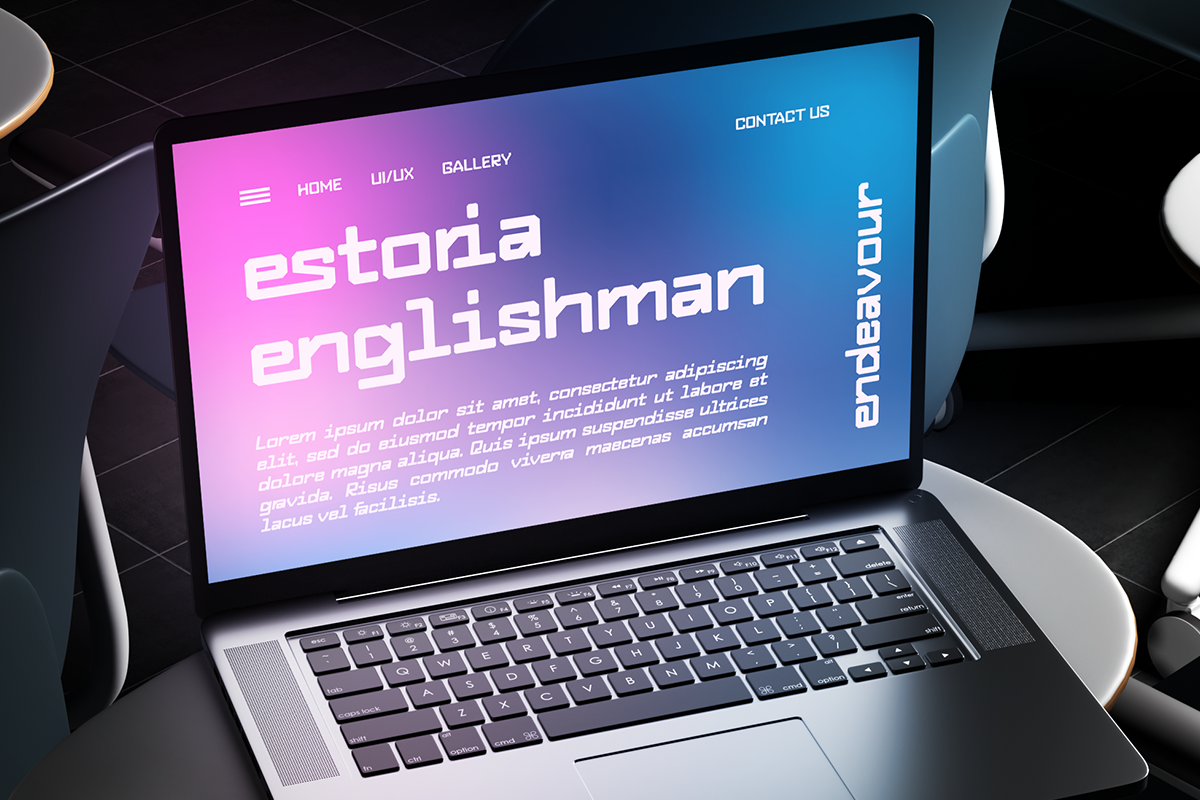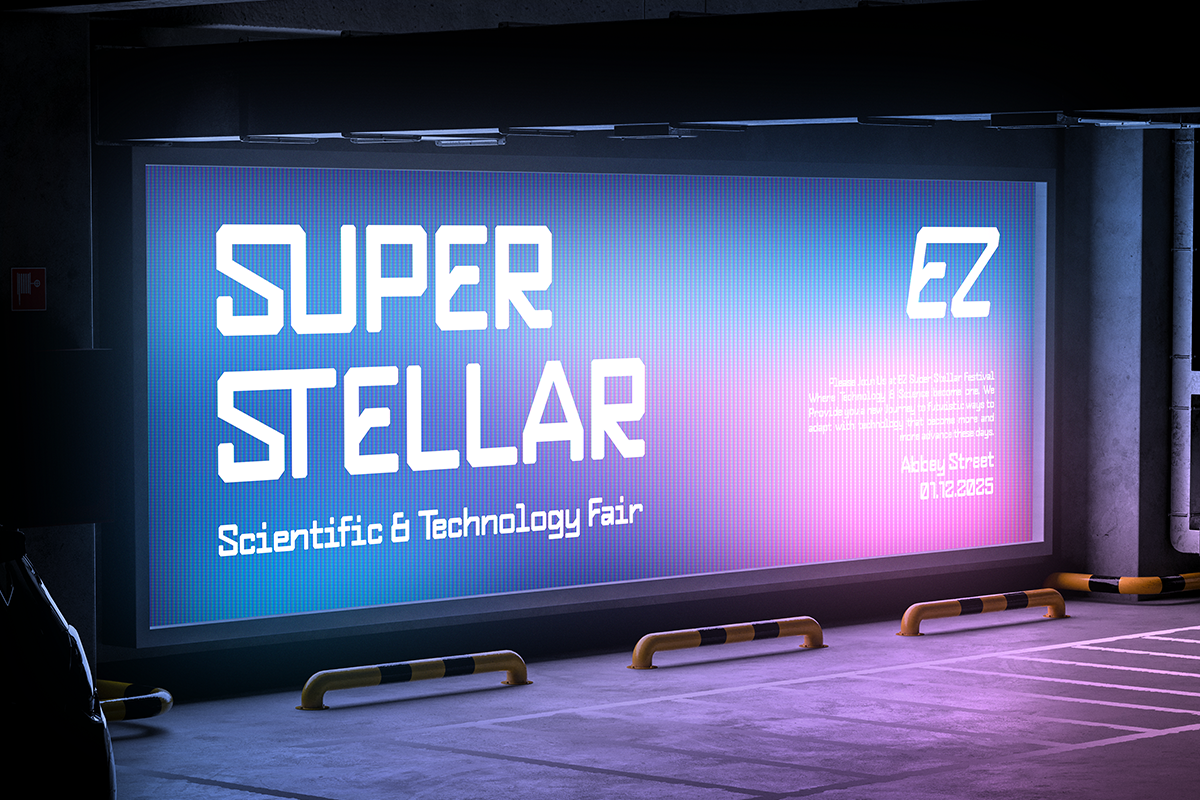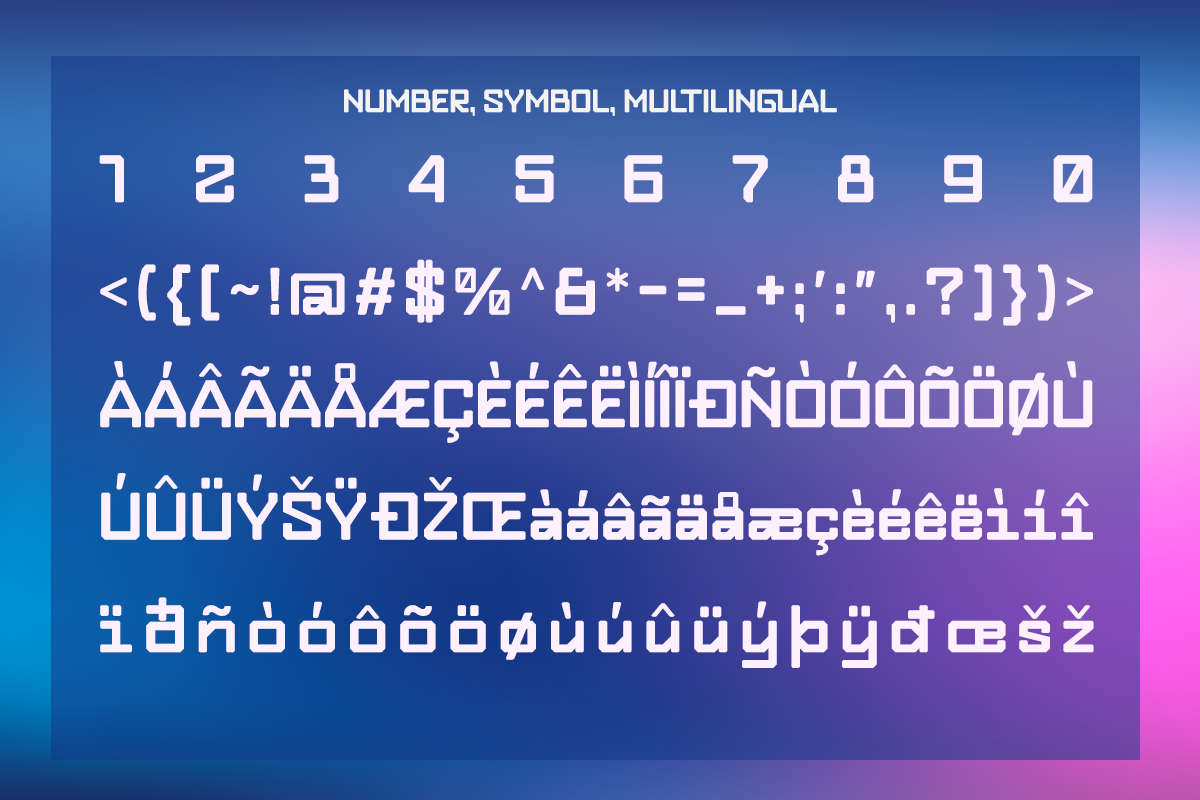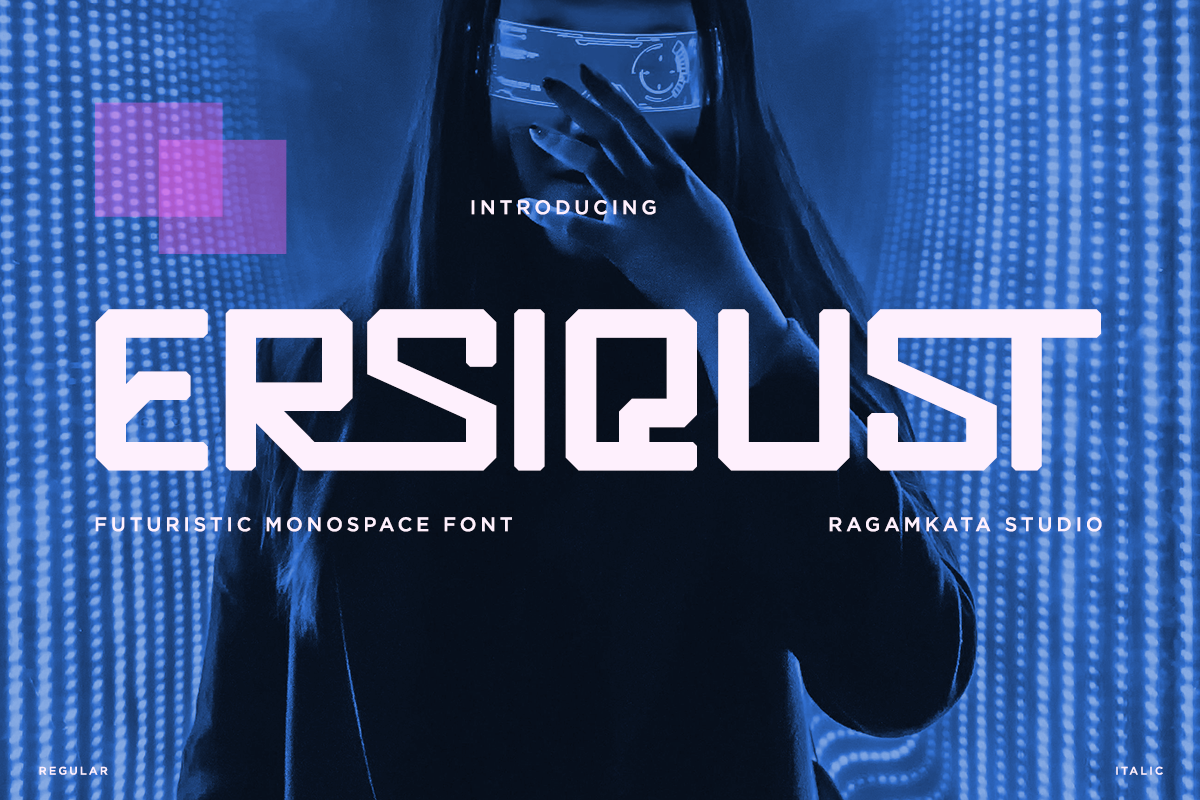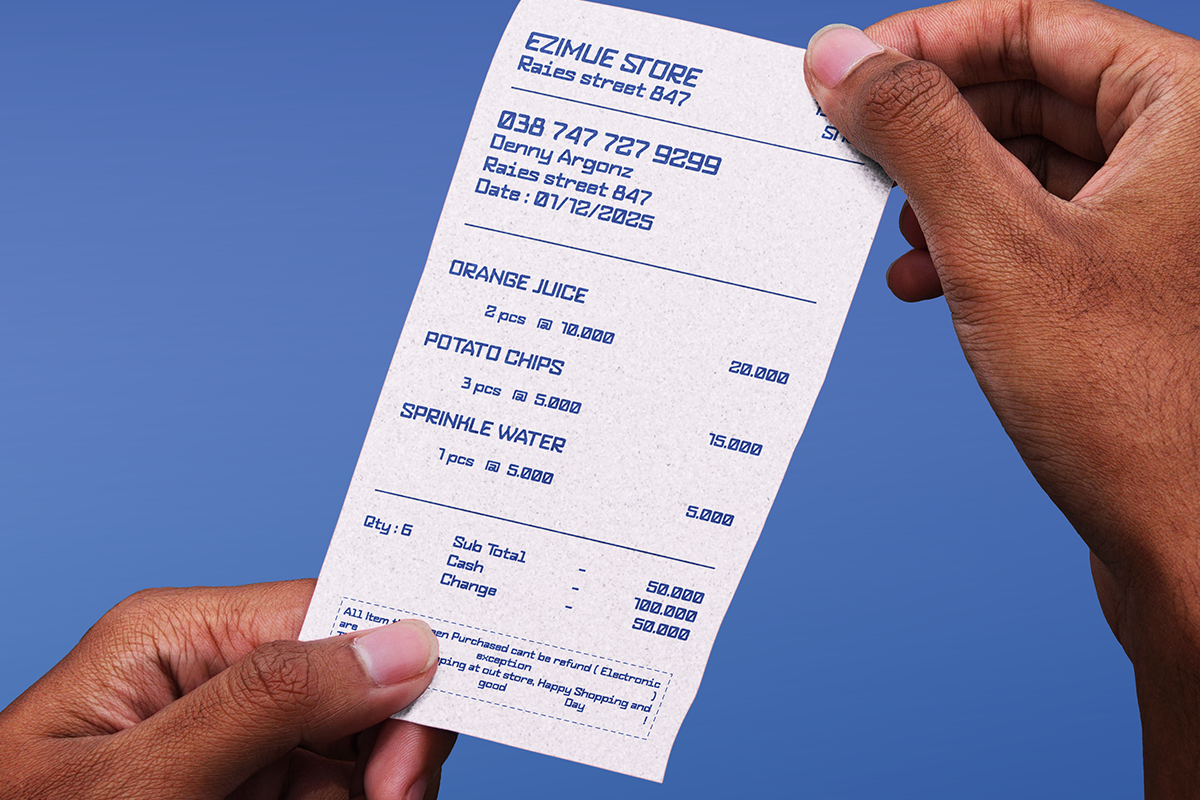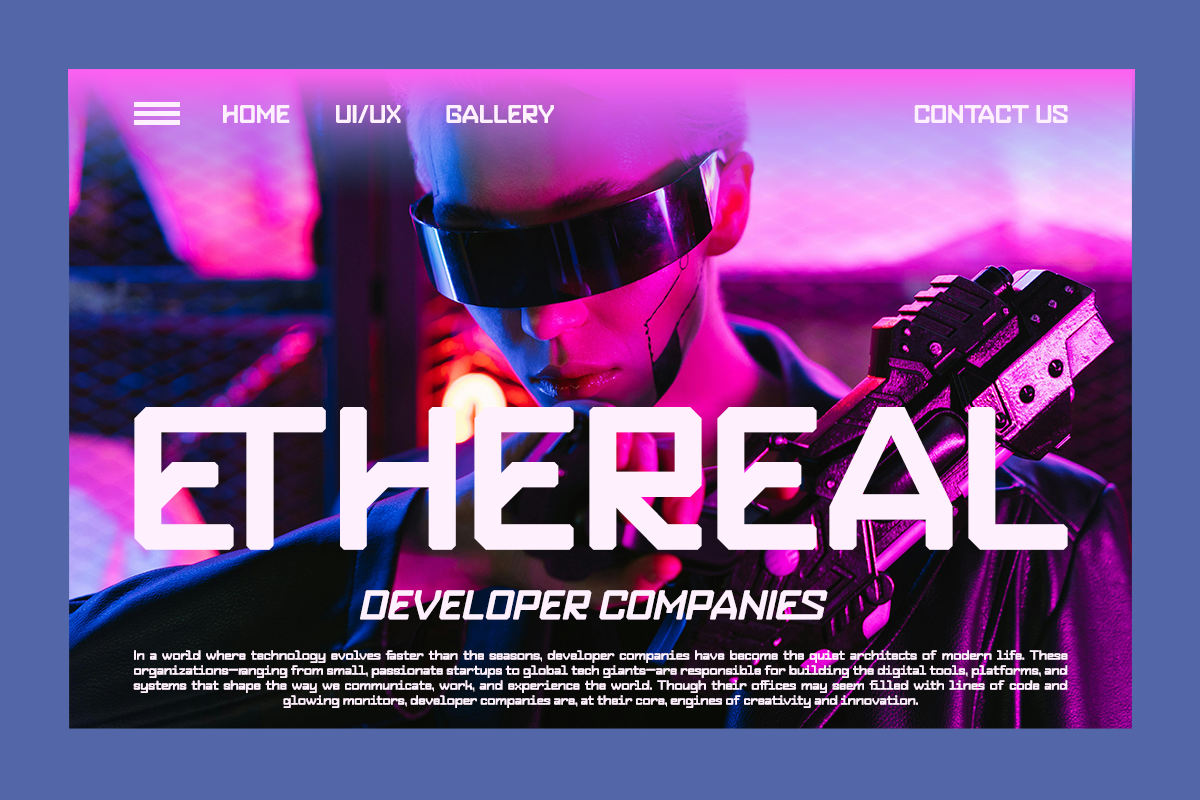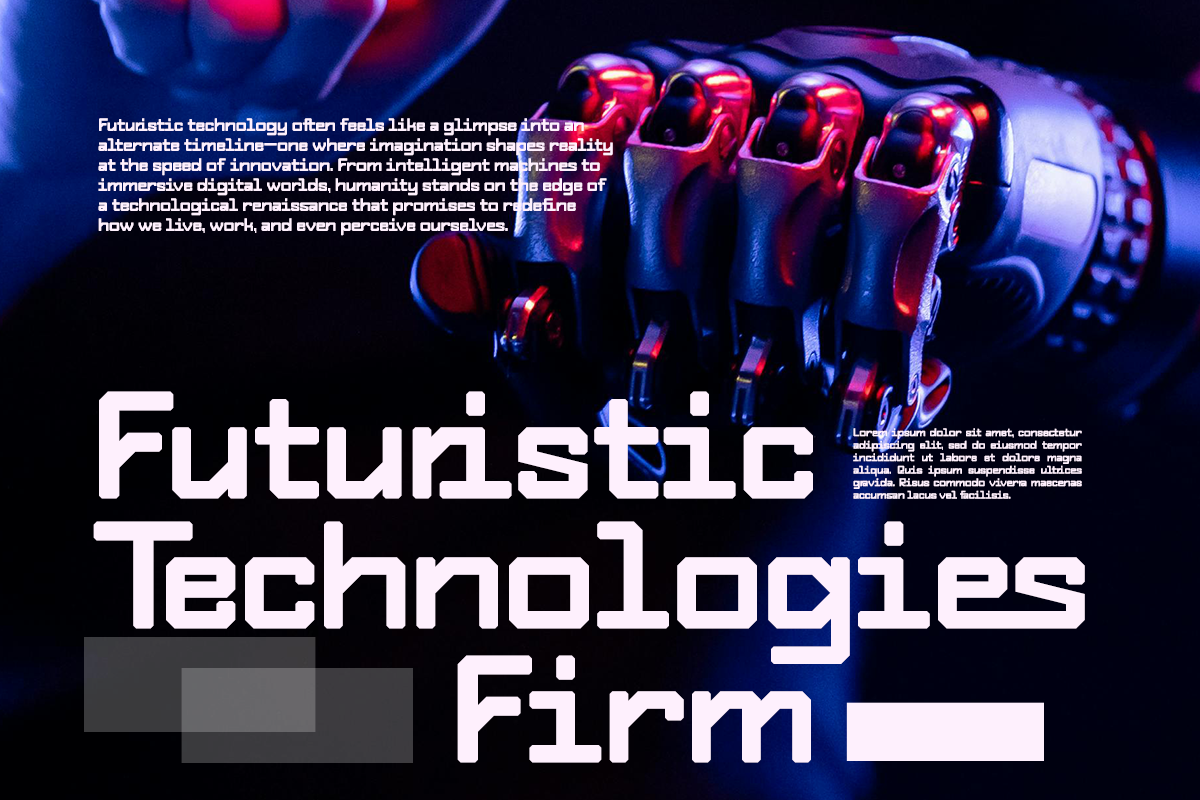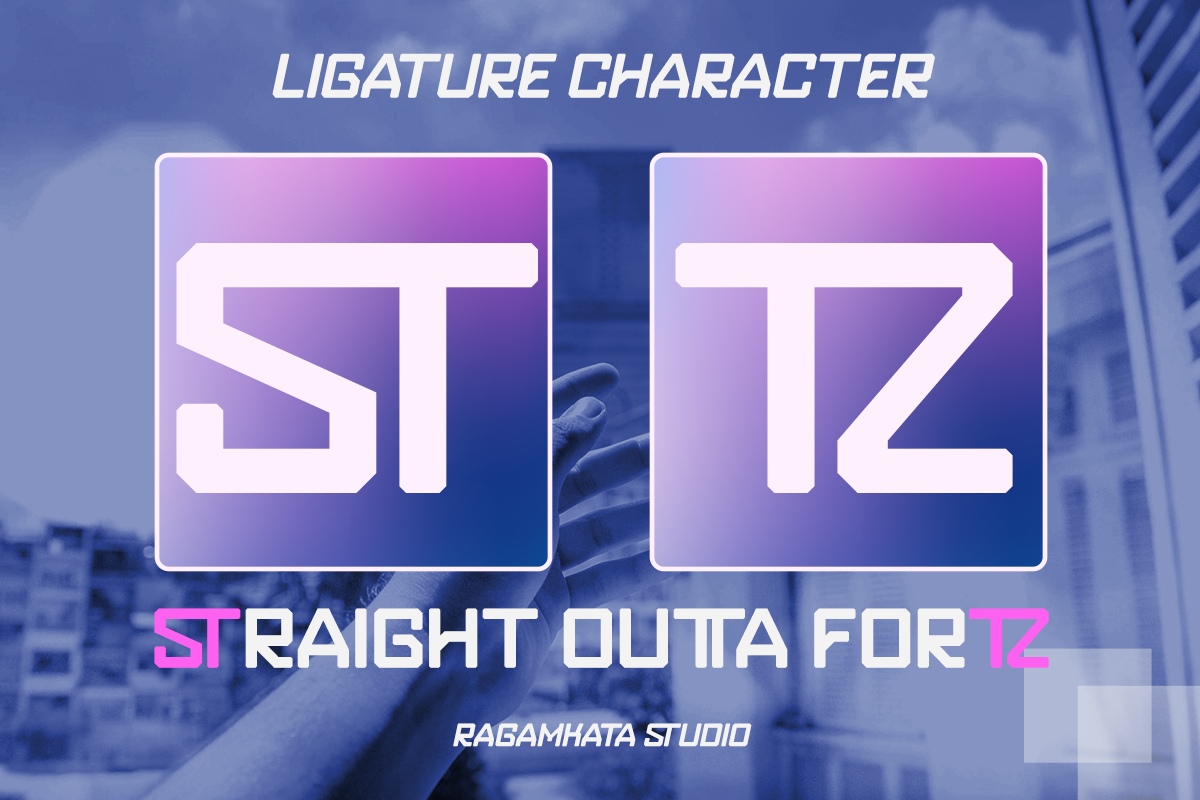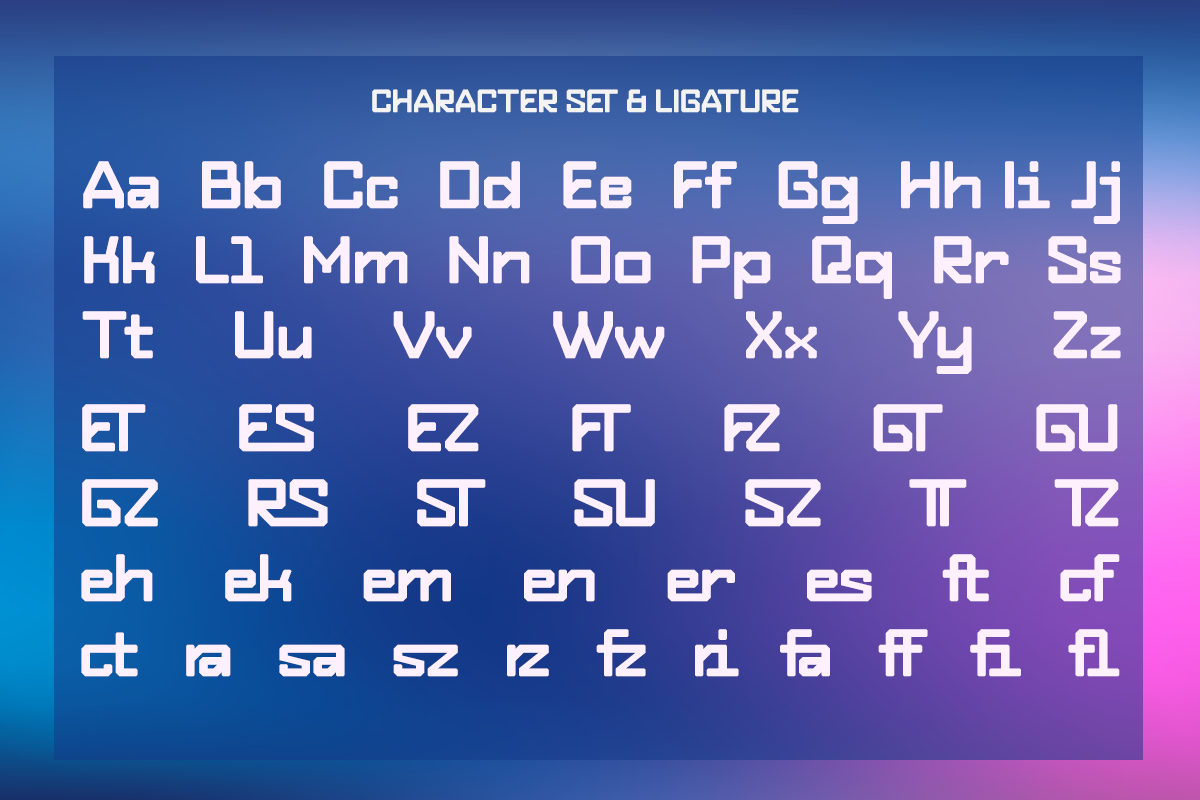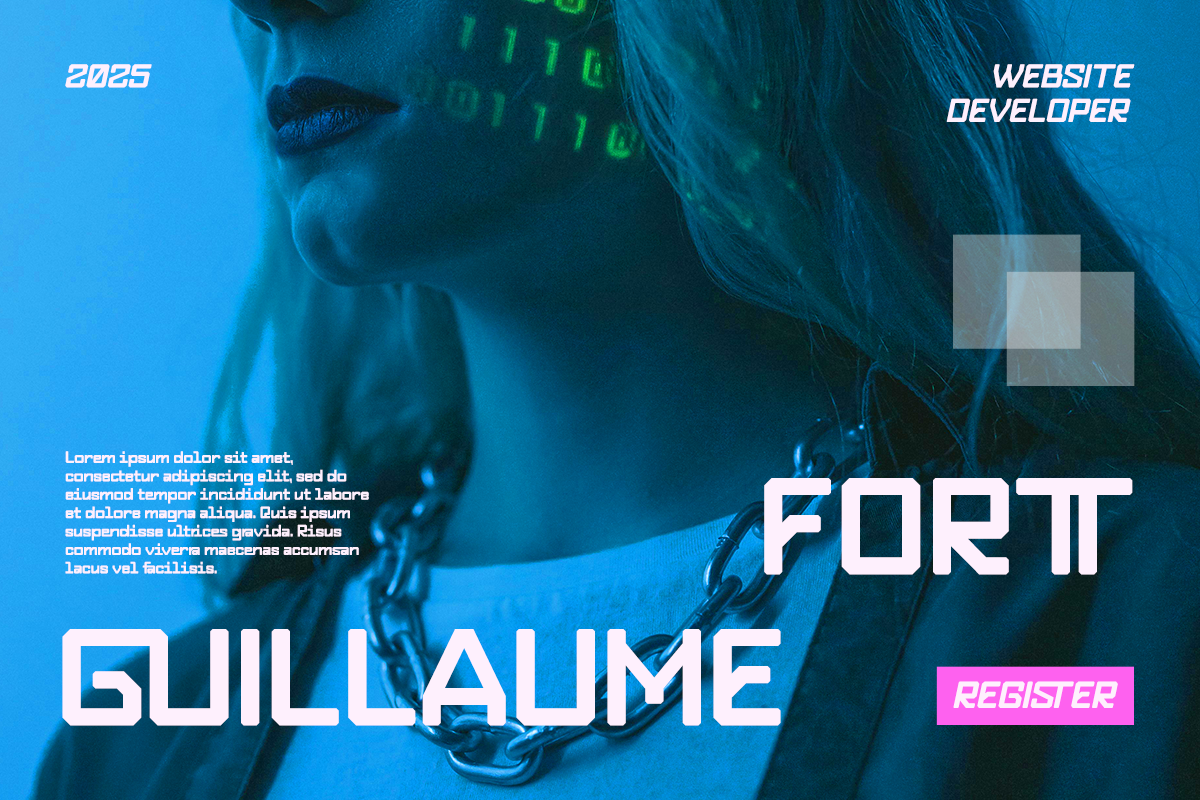
Ersiqust - Futuristic Monospace Font
Ersiqust is a flexible monospace sans typeface crafted to bring a futuristic vibe to a wide range of design applications. Ideal for logos and branding, Ersiqust also works beautifully in sci-fi posters, product packaging, and invitation layouts. Its sleek, modern style makes it a strong option for advertising materials, sportswear graphics, and ticket designs, fitting effortlessly into digital boarding passes as well as game industry visuals.
- Uppercase & Lowercase Character
- Stylish Ligature
- Number, and Symbol
- Multililngual Support